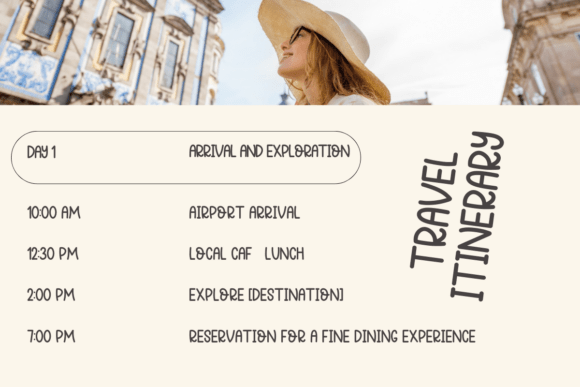
Night Stars Font
Night Stars is a fun and playful handwritten font that’s perfect for crafts, planners, KDP, stickers, greeting cards, and more. With its cute and friendly style, it works great for Cricut, sublimation, and creative DIY projects. Ideal for crafters, designers, and makers!